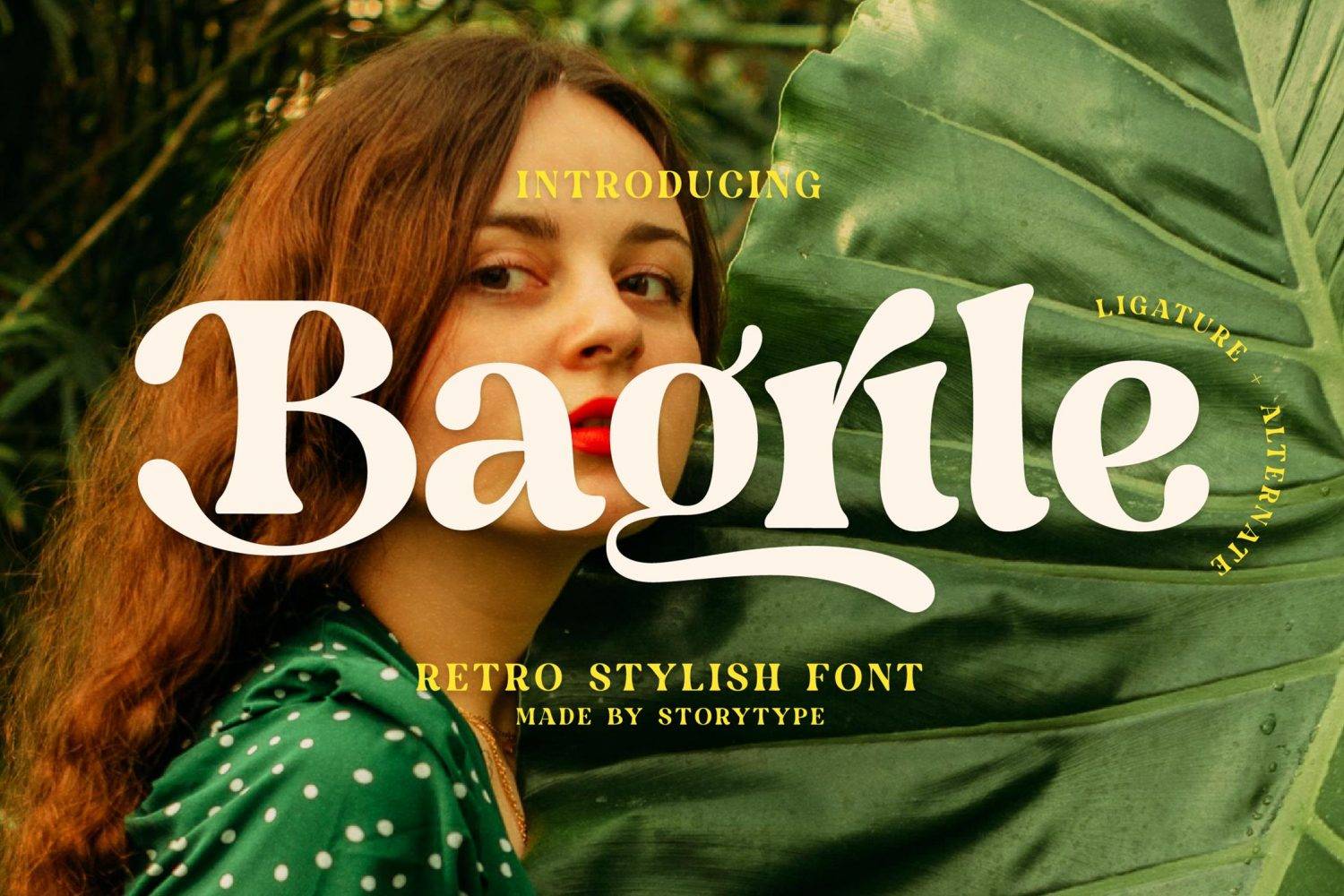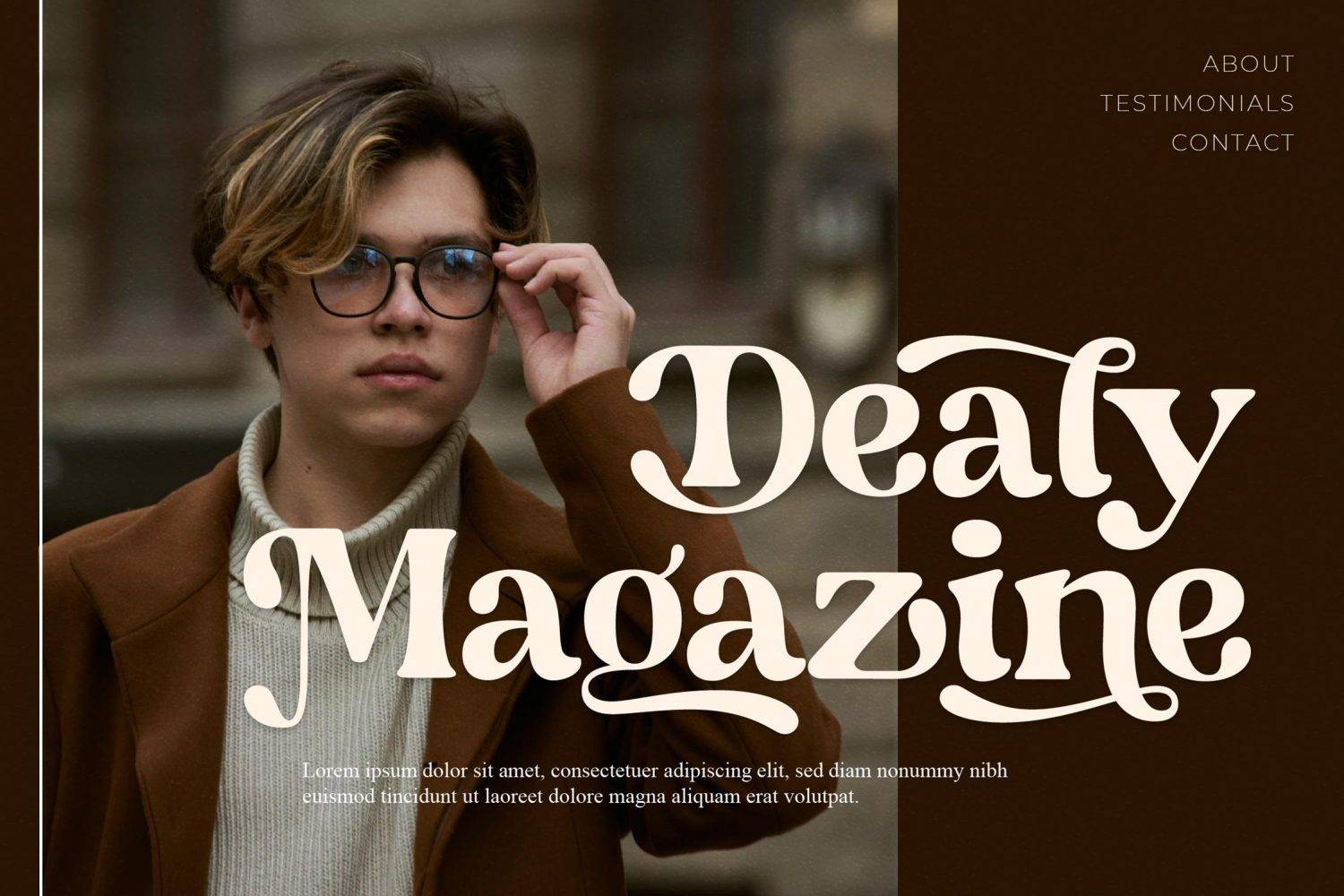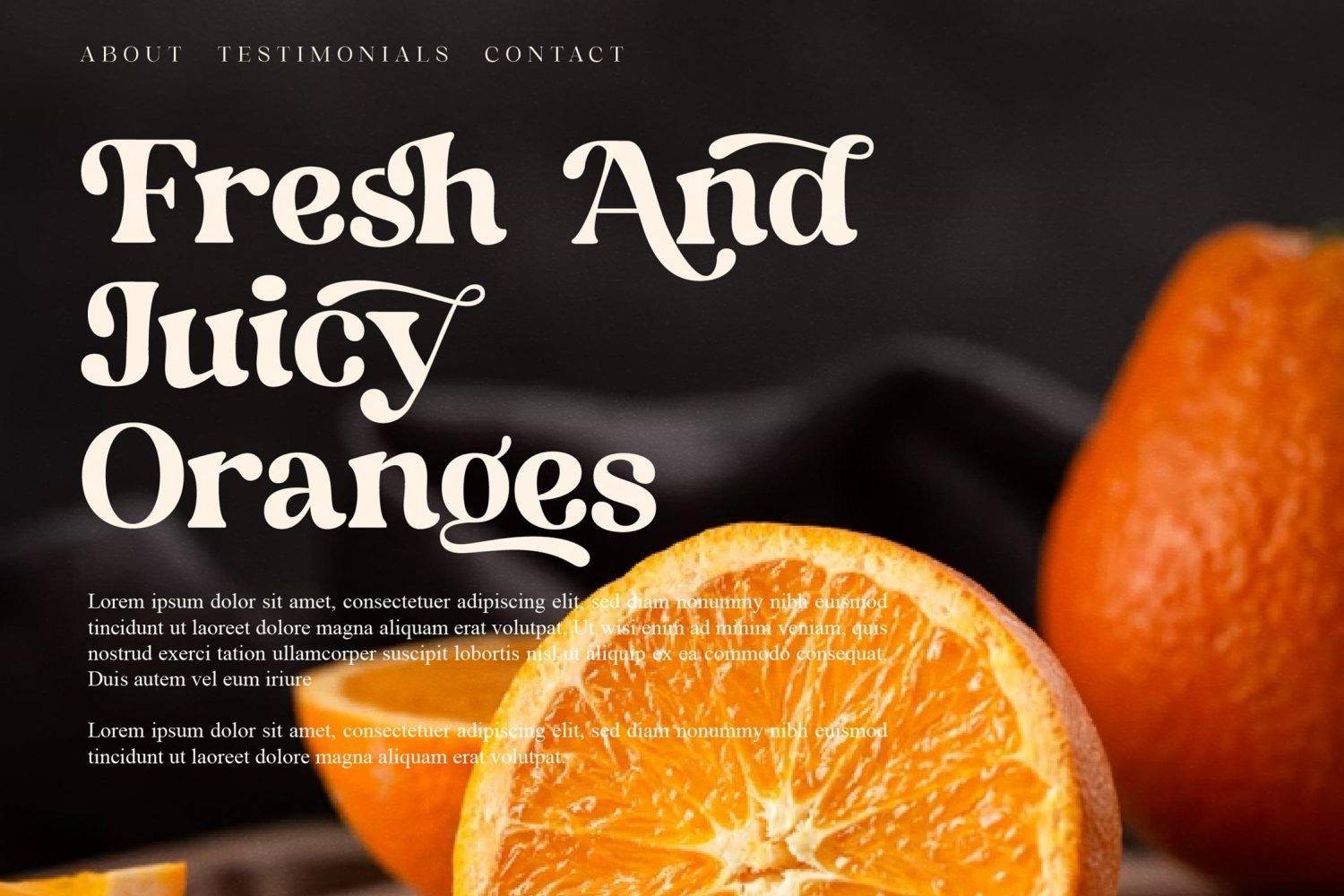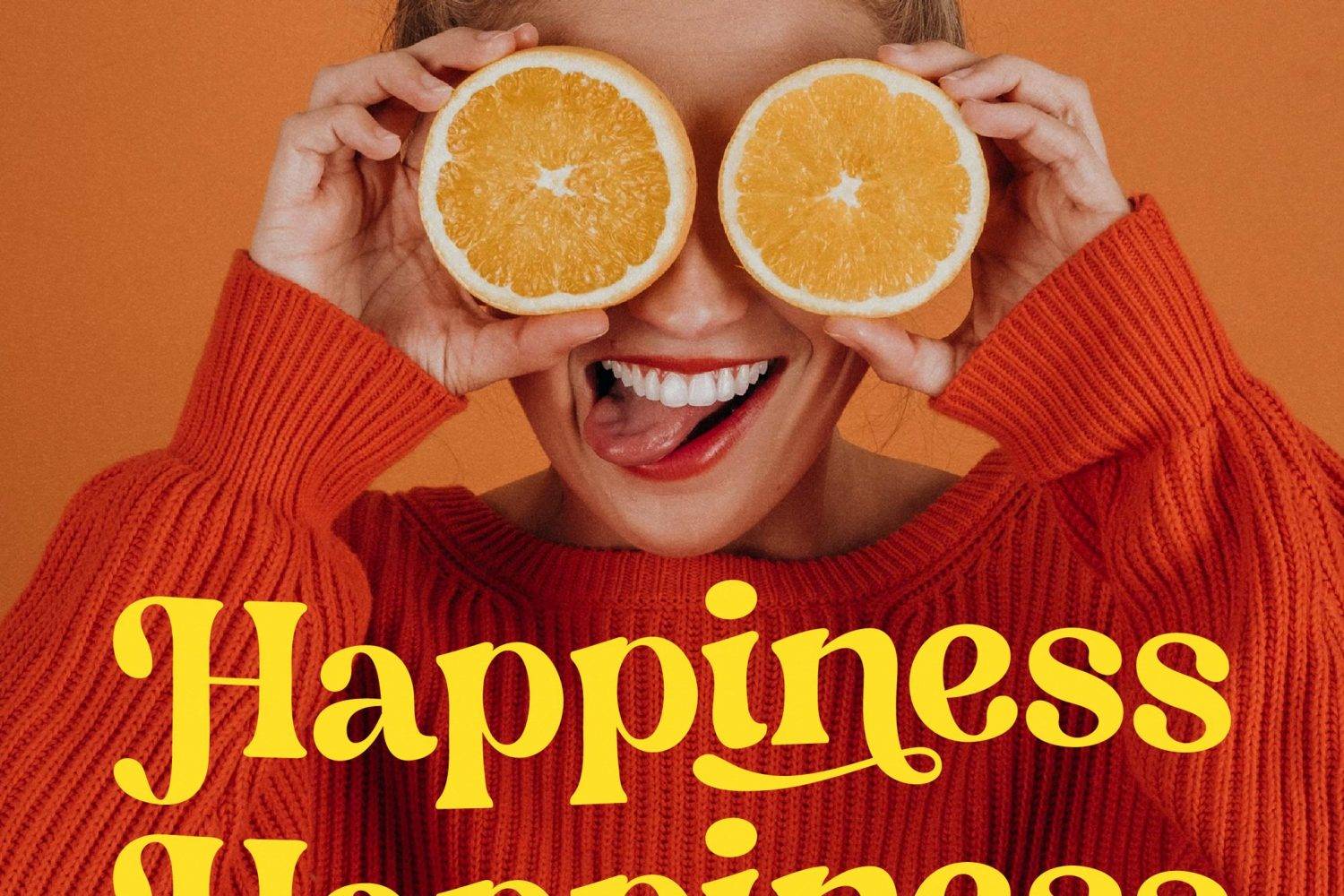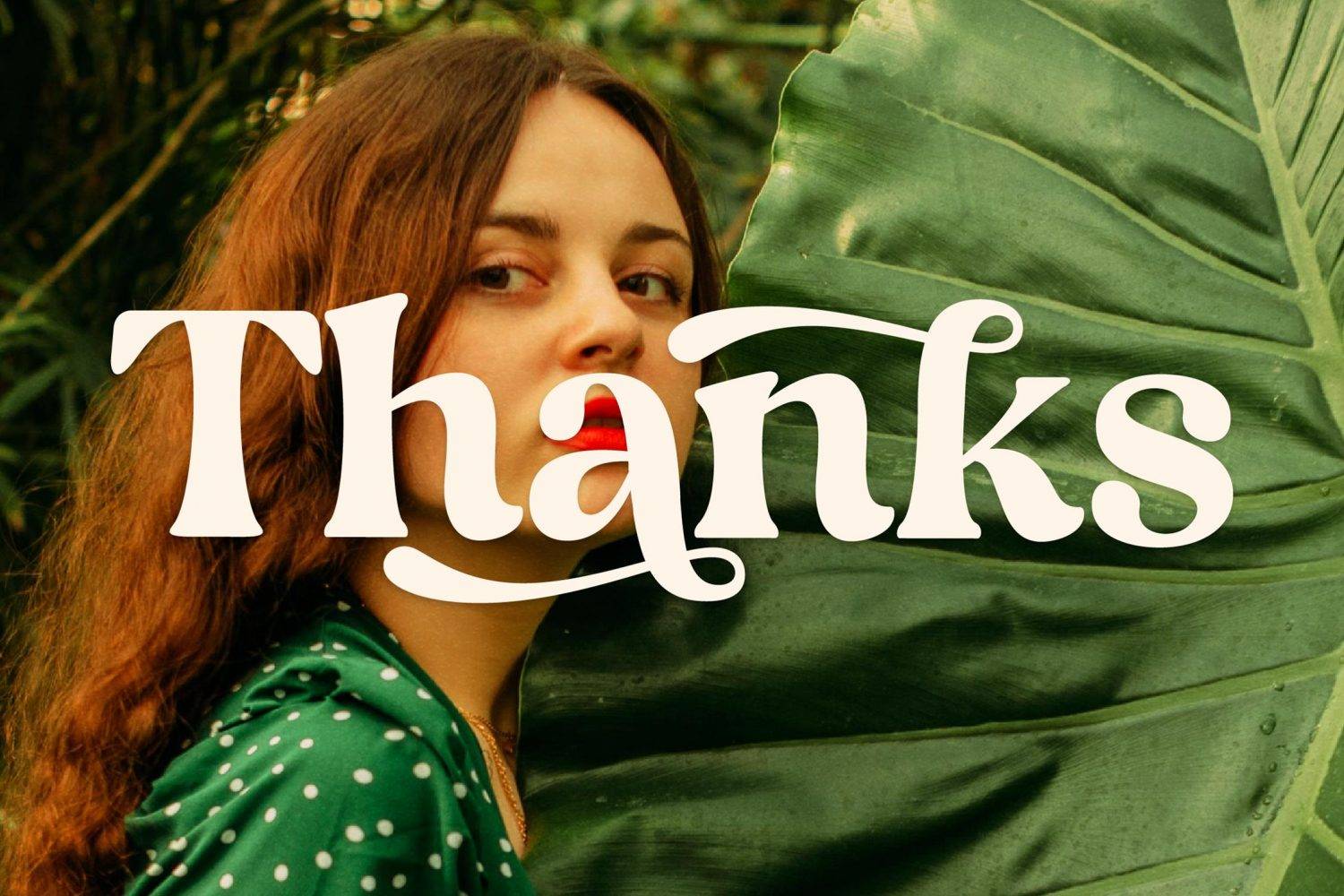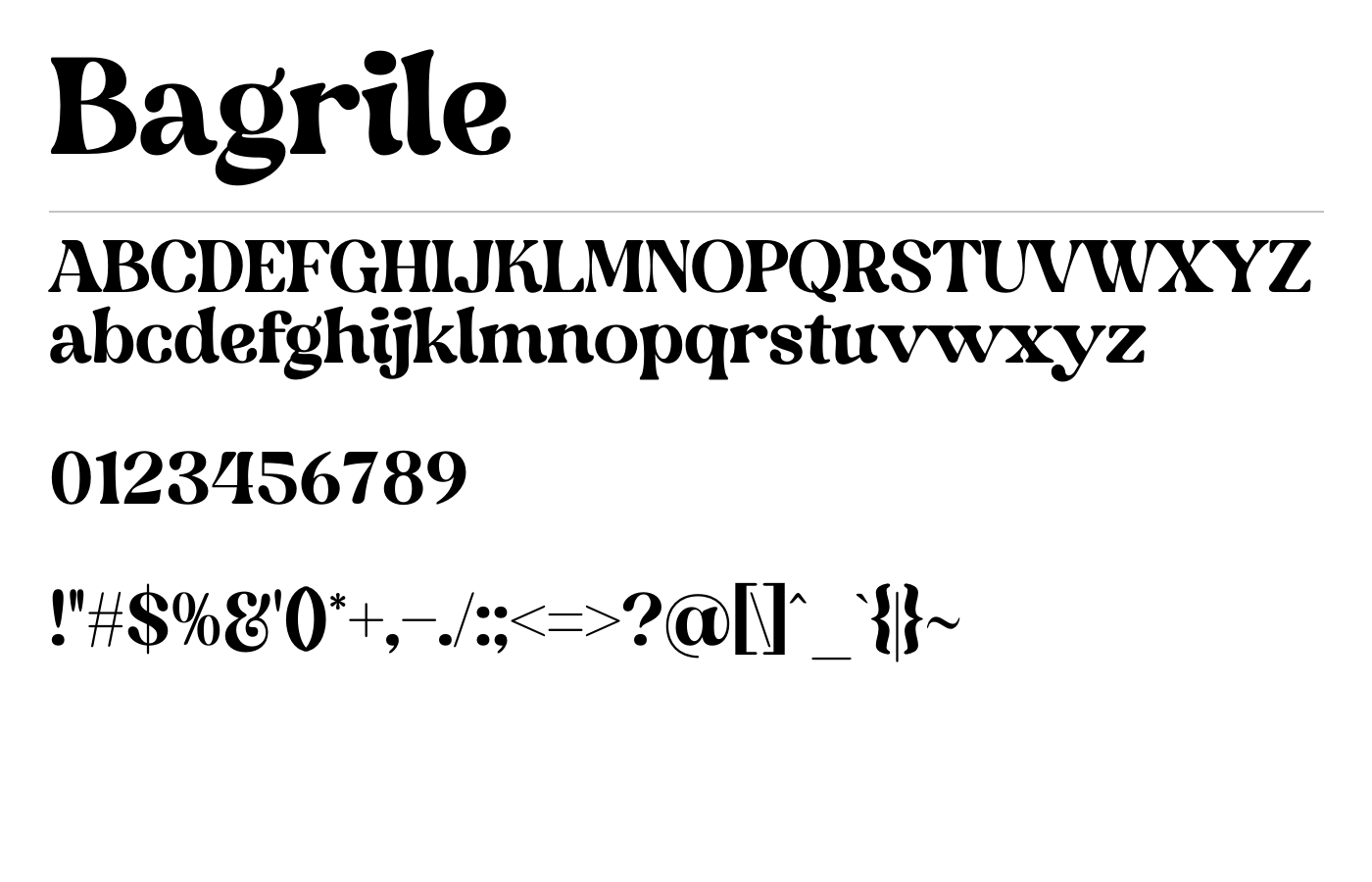
Bagrile is a bold serif font with a strong presence, combining a classic feel with playful, slightly irregular shapes that add character and warmth. Its distinct thick and thin stroke contrast, along with unique letter details like the curved tail on the Q and the single-story g, give it a vintage yet approachable style, making it ideal for branding, editorial headlines, and creative projects seeking a bold and memorable look. This font works well where a touch of personality and elegance is needed without sacrificing readability.
Bagrile Font
About Bagrile Font